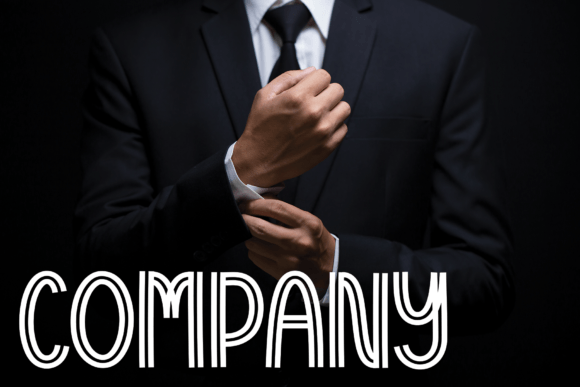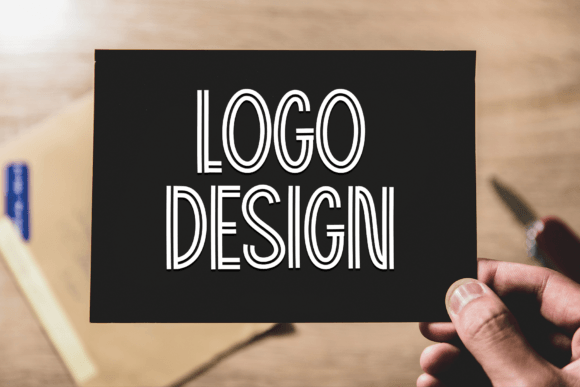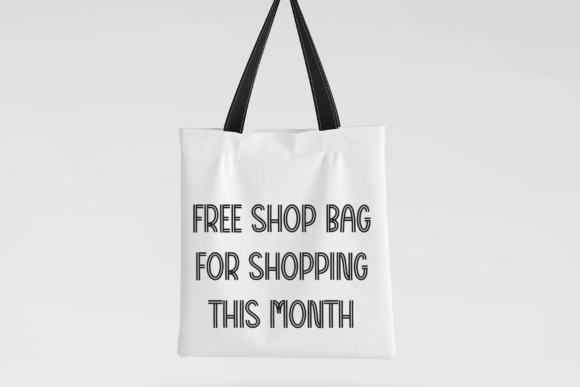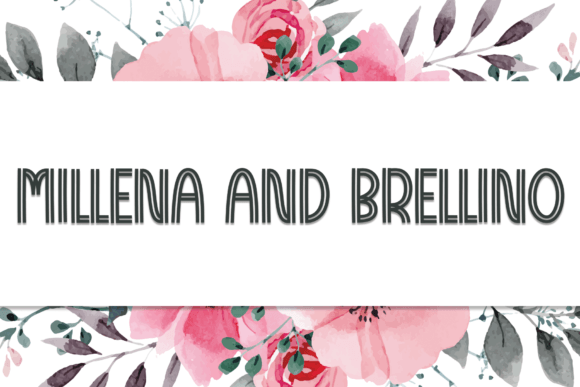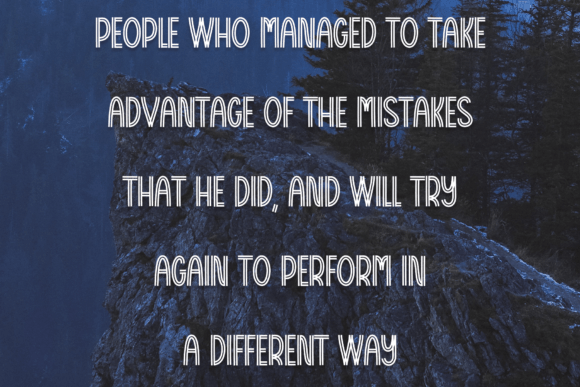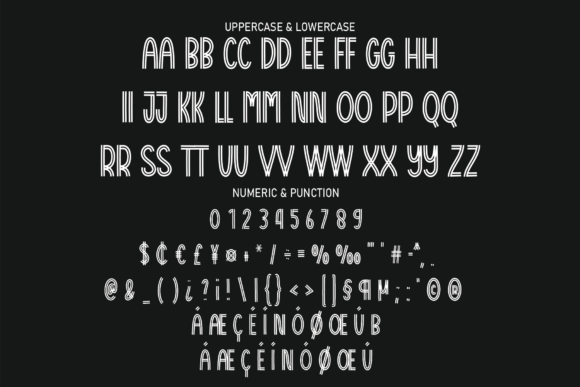
The Freelancer Font: Elevate Your Designs with Modern Flair
I’ll never forget the time I was working on a wedding invitation project, and my client asked for a font that was “modern, yet elegant.” I scoured the internet, tried countless fonts, but nothing seemed quite right. That was until I stumbled upon the Freelancer Font. Its clean lines, stylish alternates, and versatility won me over, and it’s been a staple in my design toolkit ever since.
- ✨ **Modern aesthetic**: The Freelancer Font boasts a sleek, contemporary design that’s perfect for a wide range of projects.
- ✅ **Highly versatile**: From wall displays to social media posts, this font adapts seamlessly to various design applications.
- 💡 **OpenType features**: With a range of stylistic alternates, glyphs, and ligatures, you can add an extra layer of creativity to your designs.
While the Freelancer Font is an excellent choice, there are a few things to keep in mind:
- ⚠️ **Limited Cyrillic support**: If you’re working with Cyrillic text, you might find the font limited in this regard.
- 🤔 **Some characters may require manual kerning**: While the font is generally well-spaced, you might need to adjust kerning for certain character combinations.
The Freelancer Font was designed with the modern creative professional in mind. Its sleek lines and stylish alternates are inspired by the latest design trends, making it perfect for those who want to add a touch of sophistication to their work.
Q: What type of projects is Freelancer Font best suited for?
A: Freelancer Font is versatile and can be used for a wide range of projects, including wall displays, wedding invitations, social media posts, logos, advertisements, product packaging, and more.
Q: Does Freelancer Font support OpenType features?
A: Yes, Freelancer Font comes with a range of OpenType features, including stylistic alternates, glyphs, and ligatures, allowing you to add an extra layer of creativity to your designs.
Q: Is Freelancer Font suitable for body text?
A: While Freelancer Font is primarily designed for display purposes, it can be used for body text in certain contexts. However, its clean lines and modern aesthetic may make it more suitable for headings and titles.